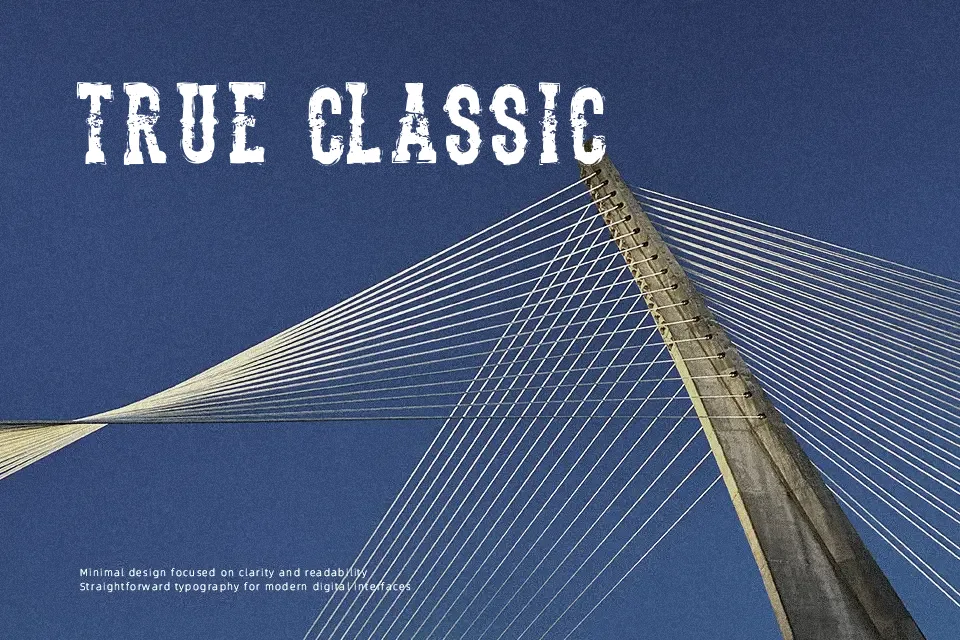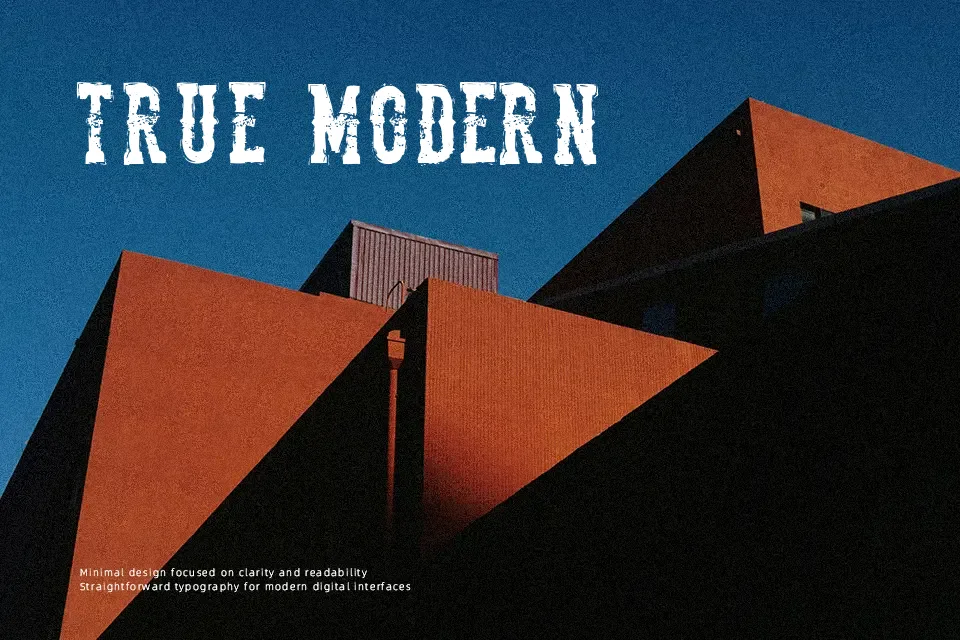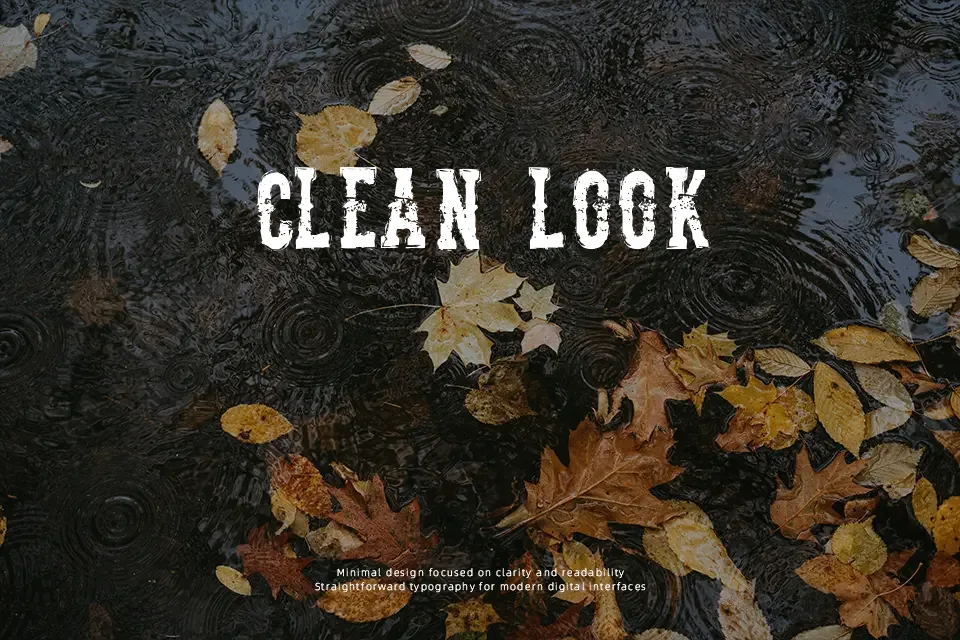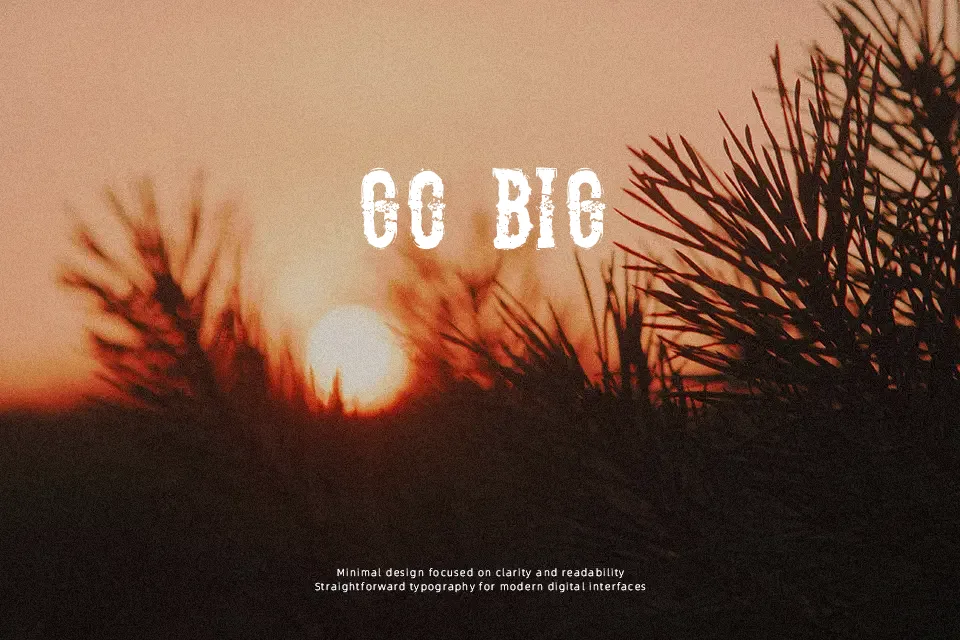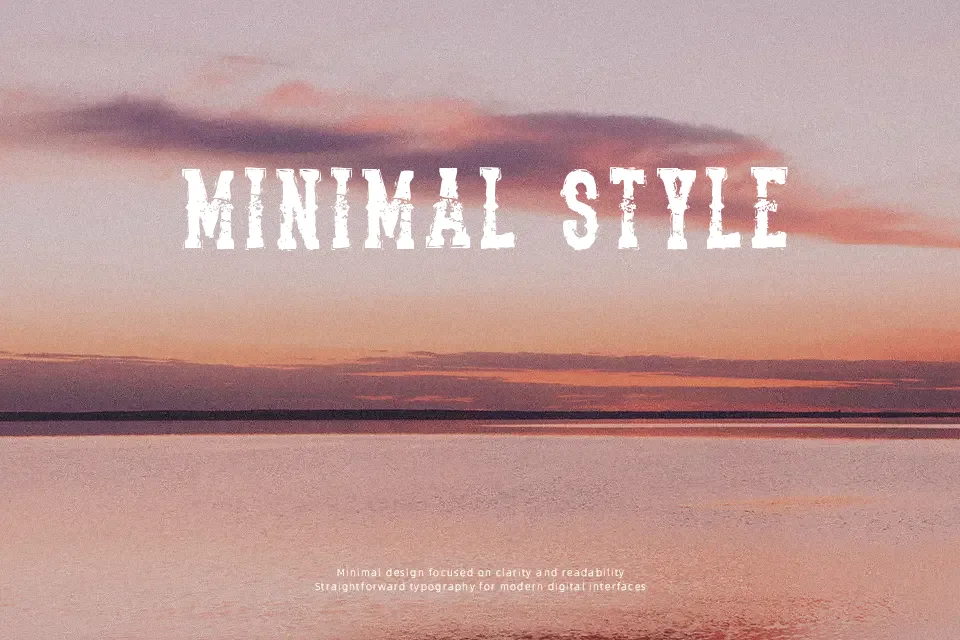
The Deadliest Saloon Font
The Deadliest Saloon Font showcases weathered display letterforms shaped by decaying textures, heavy stroke weight, and sturdy Western-style slab serifs. Thick vertical stems balance against irregular erosions across every contour, while compact spacing maintains an aggressive visual rhythm across short titles. Uppercase forms exhibit solid structural consistency, whereas intricate weathering slightly softens edge definition. Consequently, the letterforms remain easy to distinguish in short display text, lending substantial grit to vintage posters and rebellious branding. The intense distressing reduces reading comfort across continuous text blocks, making it an impractical choice for extended editorial copy or fine captioning.
horror movie posters,vintage apparel graphics,saloon event banners,heavy metal album covers
long paragraph text,mobile app interface labels,dense editorial layouts,legal documentation
Perfect for branding, headline, and packaging, with a dark and decorative style.